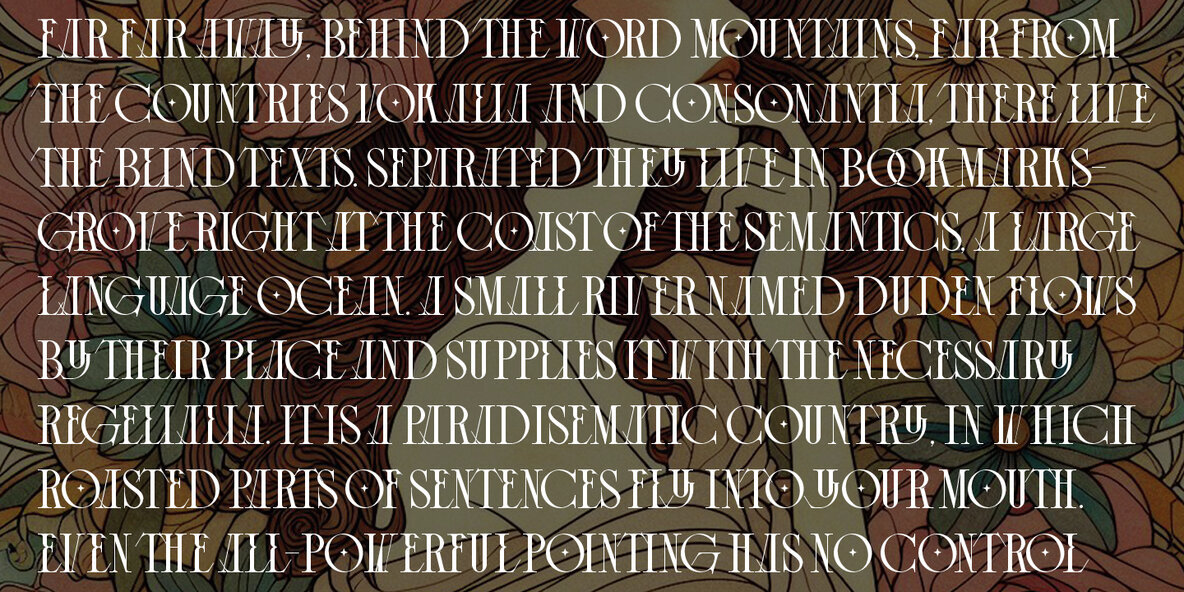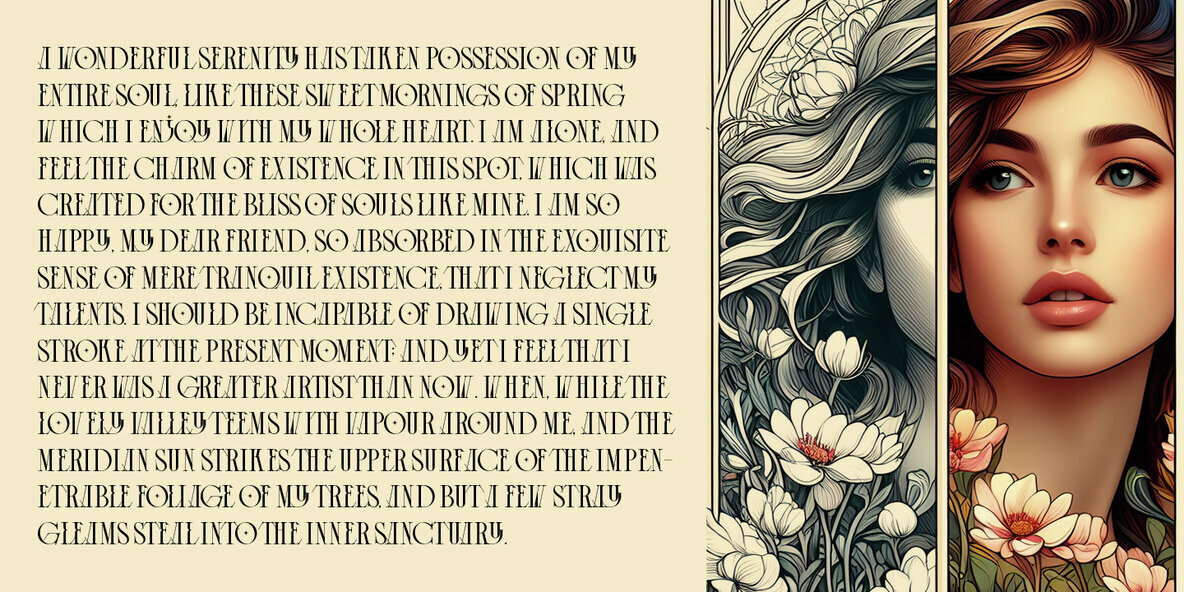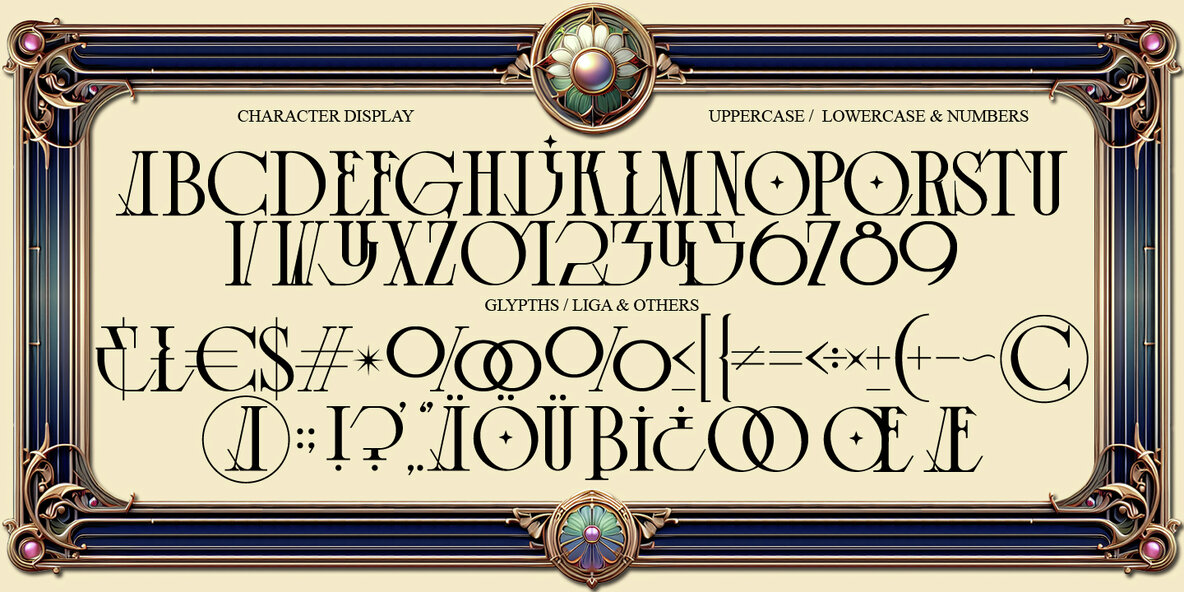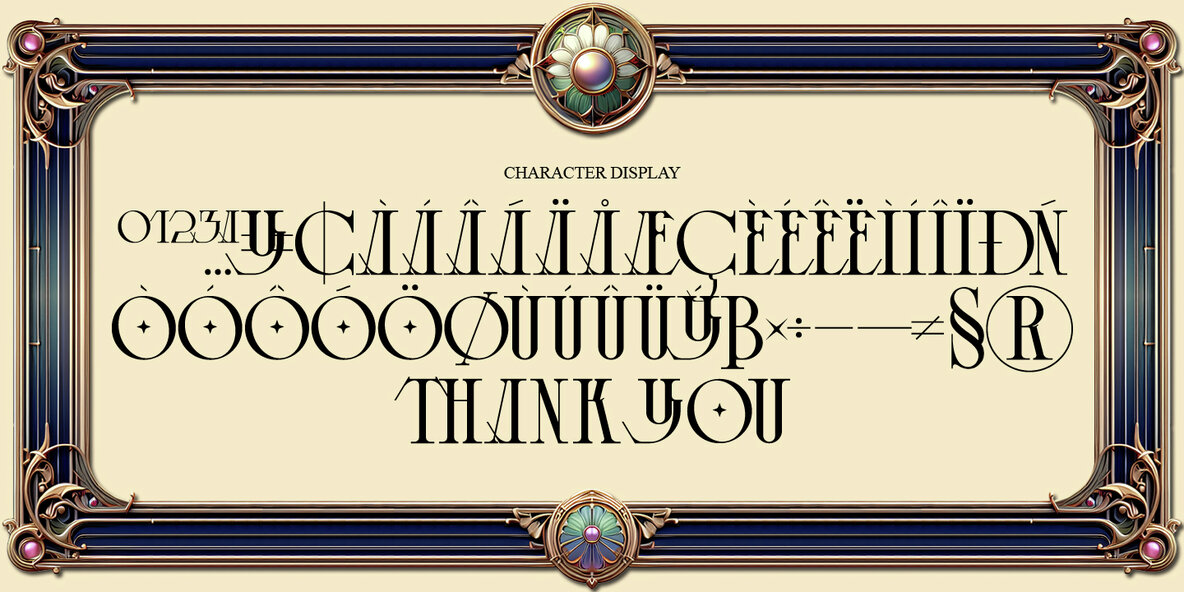
Padjintan timoer Font
Padjintan timoer Regular
Inspired by the Art Nouveau style and modern elegance, Padjintan Timoer by Deni Dessastra is ideal for a variety of design needs, including badges, branding, labels, apparel, headlines, signage, logos, and quotes. Perfect for any creative applications.